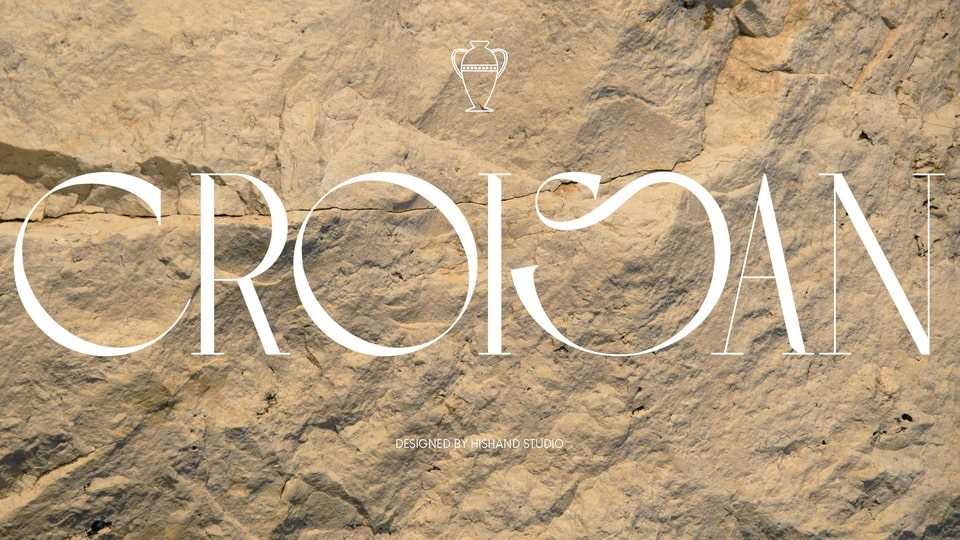
Download Croisan font, a sophisticated serif typeface that stands out for its delicate and slender lettering, making it an ideal choice for conveying a sense of subtle luxury and elegant.